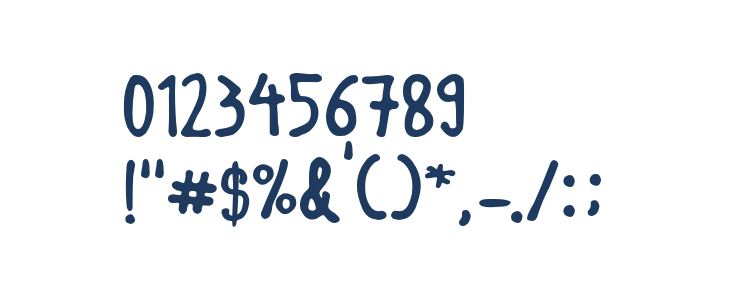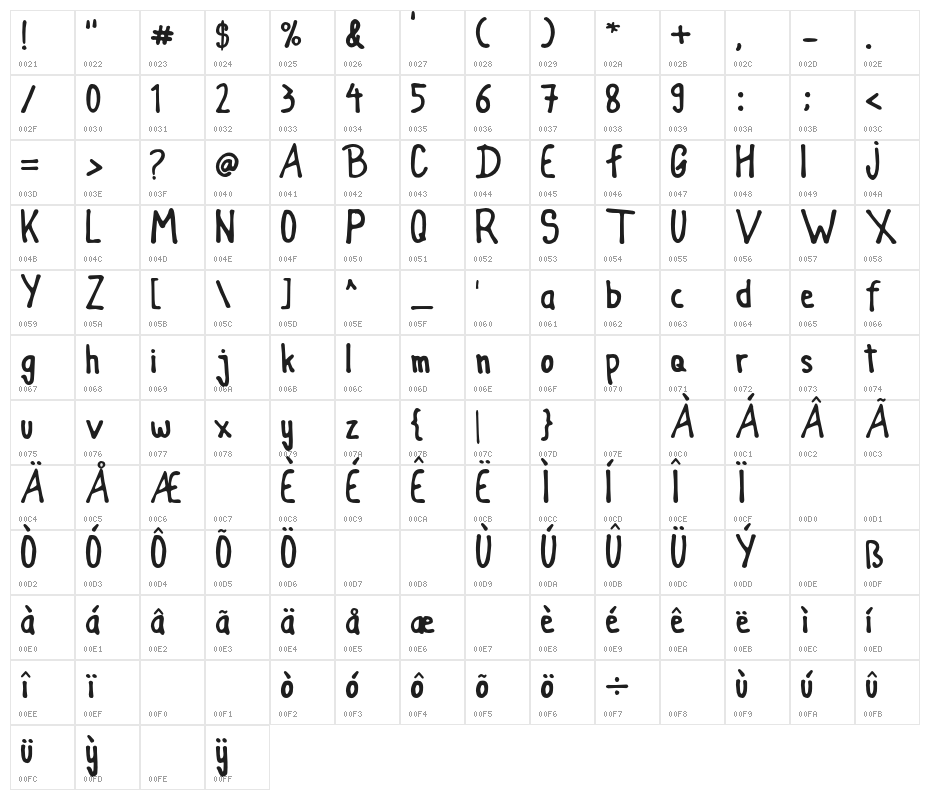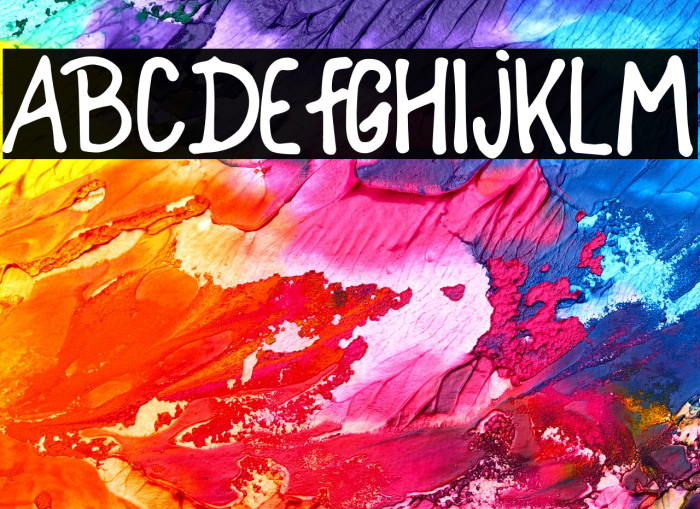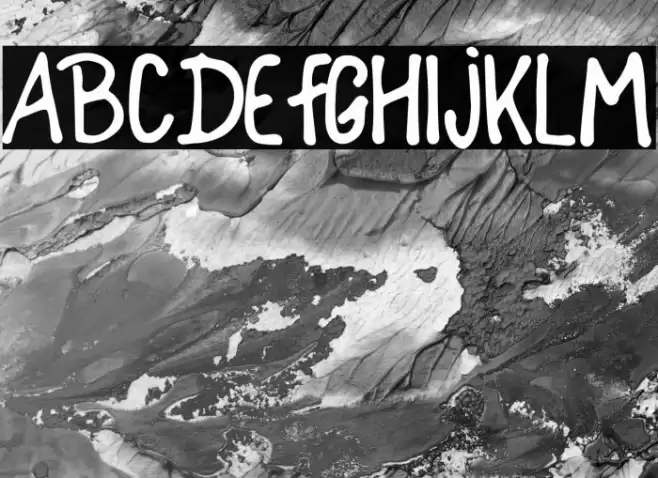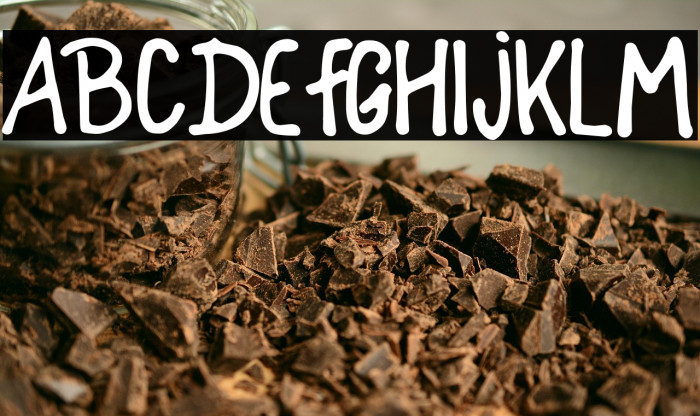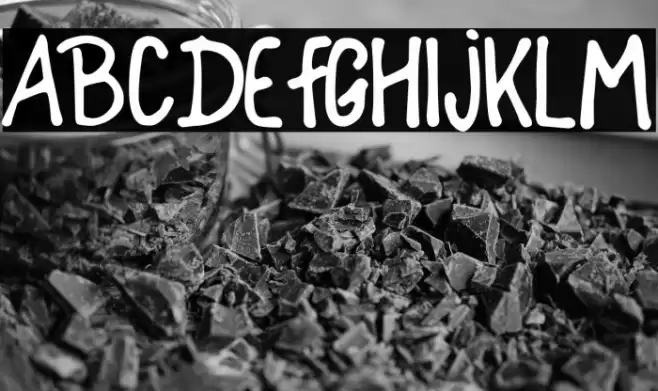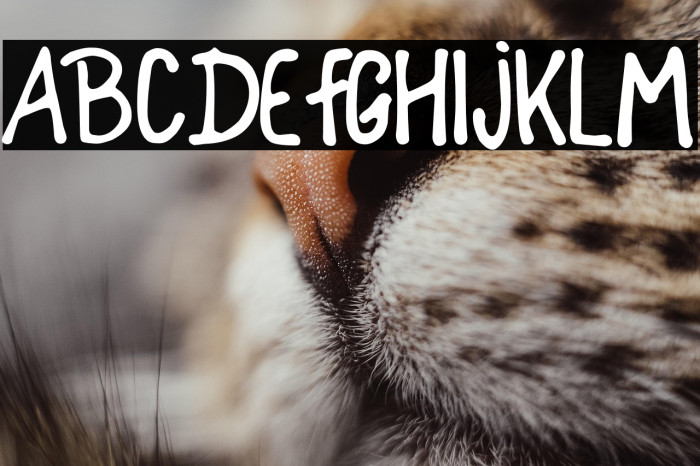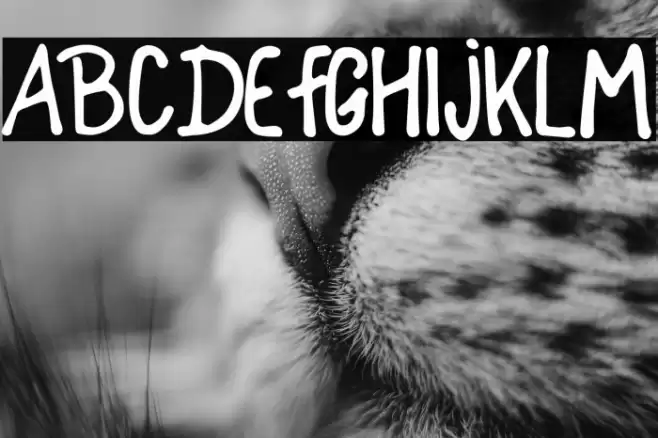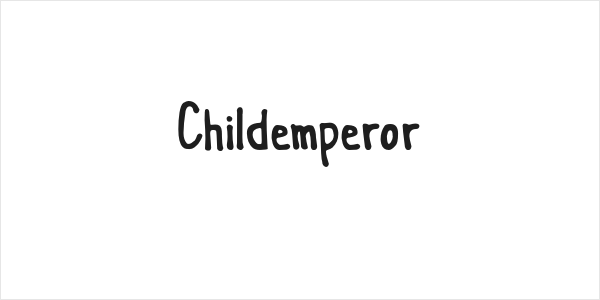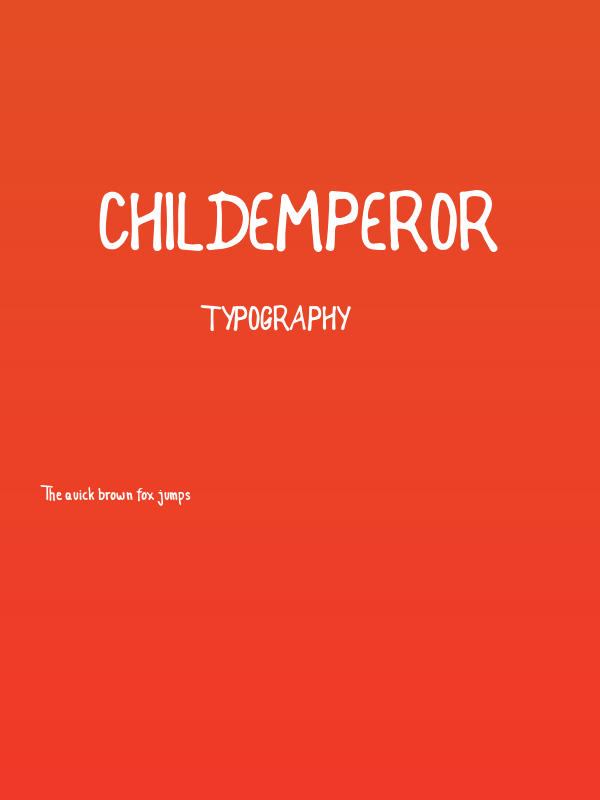
Childemperor Font
Childemperor Description
This playful and whimsical font features a hand-drawn style with irregular, organic shapes. The letters have a casual, childlike appearance, with varying stroke thickness that adds to its charm. The uppercase and lowercase letters maintain a consistent style, while the numbers and special characters complement the overall design. The font's uneven baseline and quirky character forms make it ideal for projects that require a fun and informal touch.
| Use Case | Headlines, Informal text, Children's materials |
| Proposed Projects | Perfect for children's books, playful branding, greeting cards, and informal invitations. |